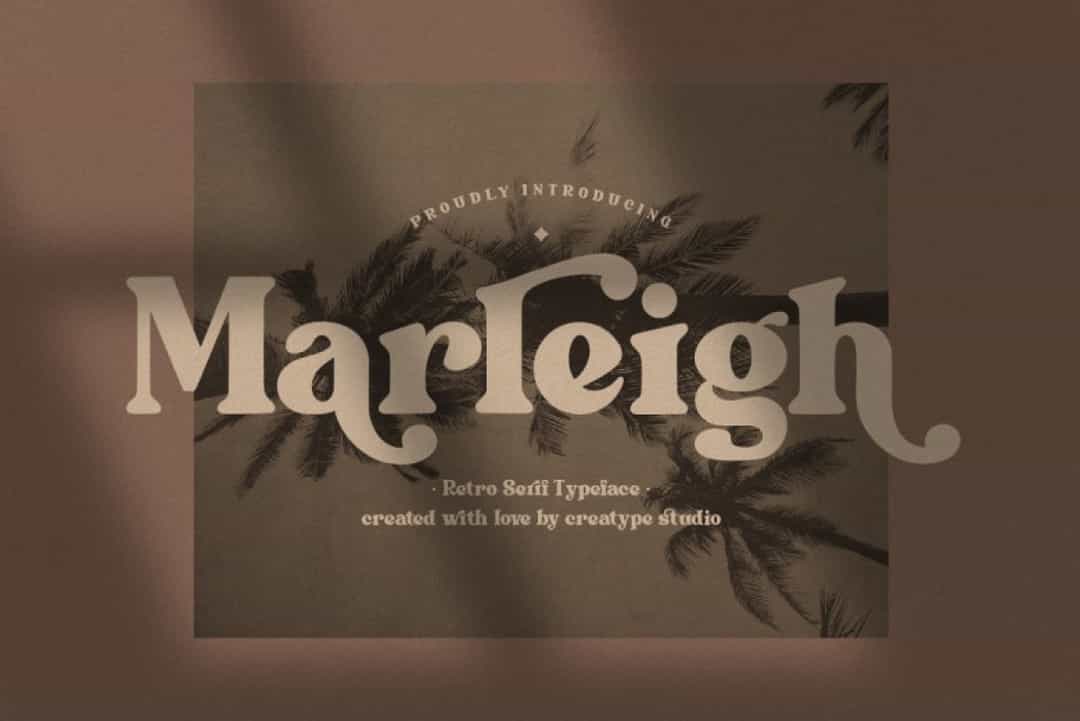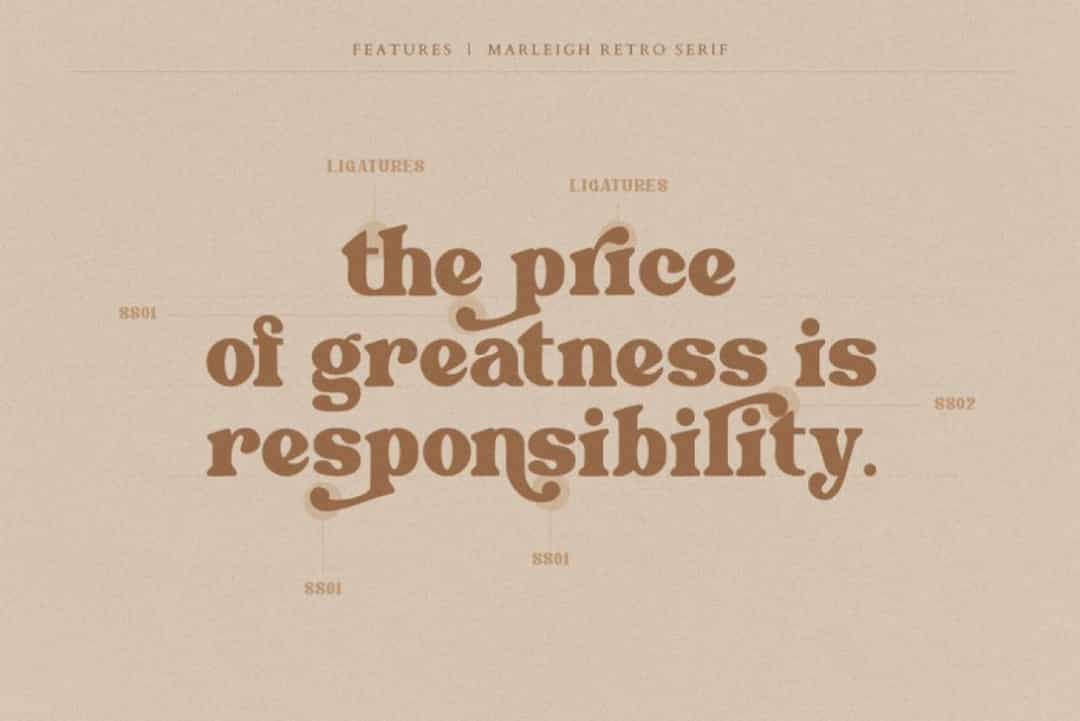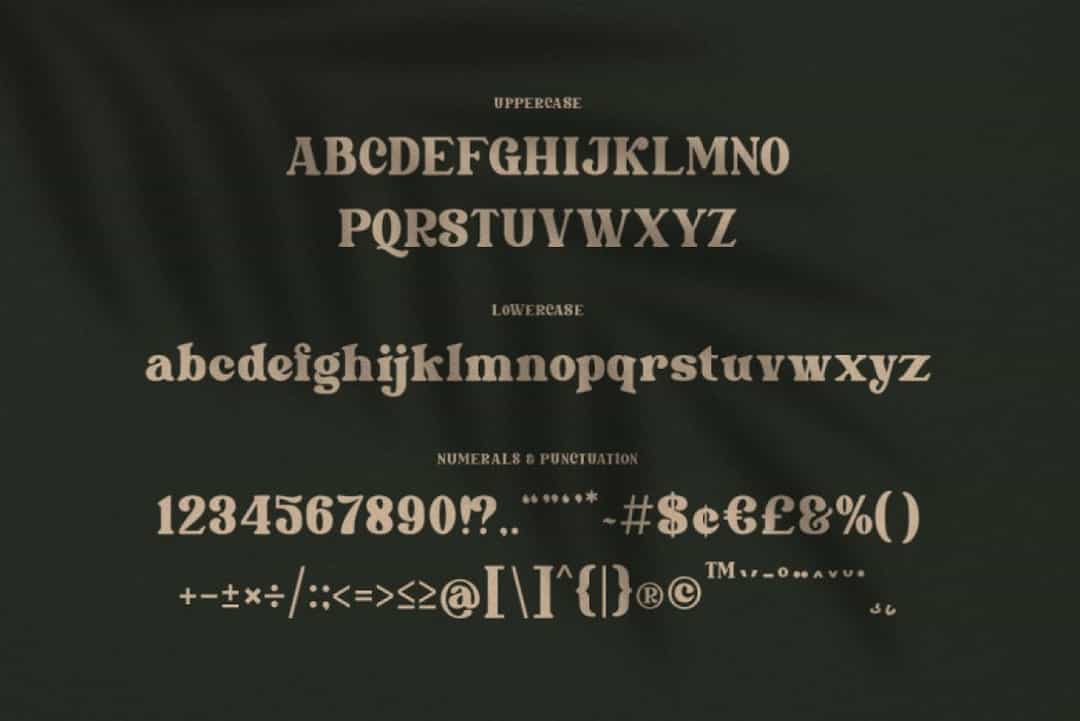
Marleigh Serif Font features an elegant vintage serif typeface. Its large form makes Marleigh appear timeless; transporting us back to the 70s through to 90s era. People find Marleigh easy to remember.